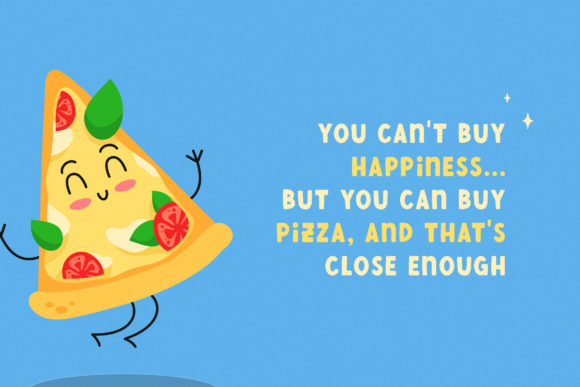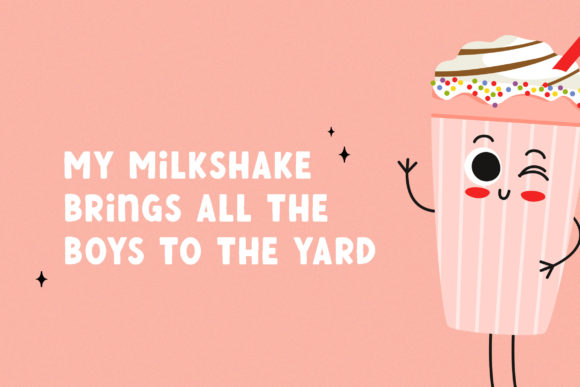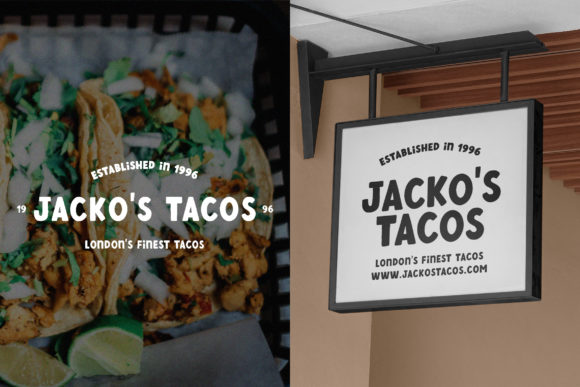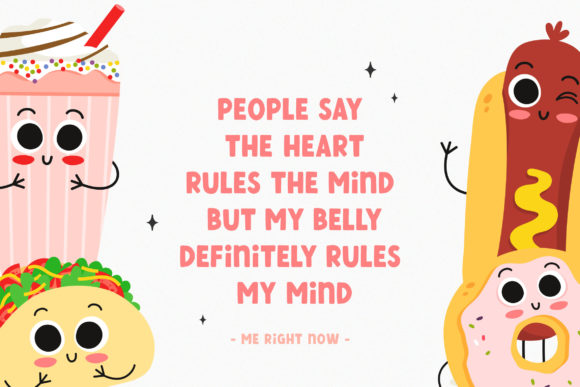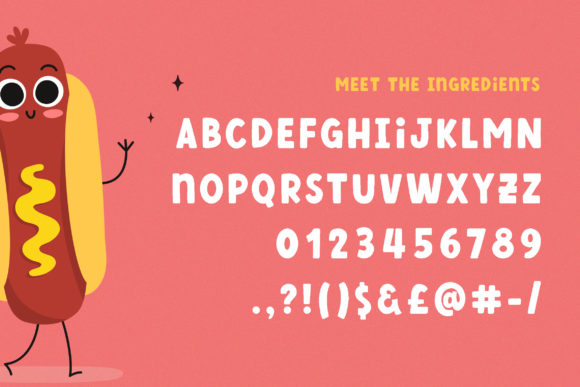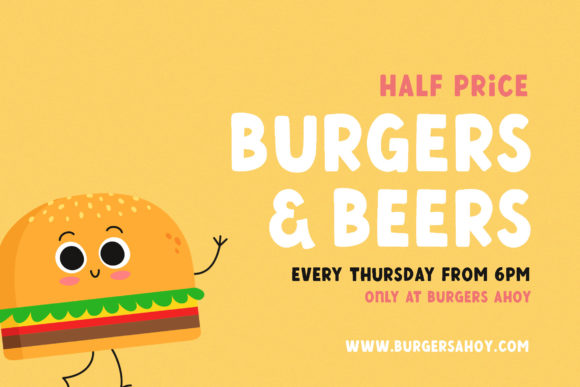
Fries and Shake Font: The Ultimate Display Font for Relaxed Creations
Are you tired of using the same old fonts for your designs? Look no further than the Fries and Shake font, a cool, bold, and thick lettered display font that’s perfect for adding a relaxed touch to your creations. With its informal style and casual vibe, this font is sure to become a go-to choice for designers and crafters alike.
What Makes Fries and Shake Font So Special?
Fries and Shake font is a unique and eye-catching display font that’s designed to add a fun and carefree touch to your designs. Its bold and thick letters make it perfect for headlines, titles, and other applications where you want to make a statement. The font’s informal style and casual vibe also make it ideal for designs that require a relaxed and laid-back feel, such as posters, flyers, and social media graphics.
Key Features of Fries and Shake Font
- Cool and Bold Design: Fries and Shake font features a cool and bold design that’s perfect for making a statement.
- Thick Lettered: The font’s thick letters make it easy to read and add a touch of sophistication to your designs.
- Informal Style: The font’s informal style and casual vibe make it perfect for designs that require a relaxed touch.
- Versatile: Fries and Shake font is versatile and can be used for a wide range of design applications, from posters and flyers to social media graphics and more.
Who Can Benefit from Using Fries and Shake Font?
Fries and Shake font is perfect for designers, crafters, and anyone who wants to add a relaxed touch to their creations. Here are some examples of who can benefit from using this font:
- Graphic Designers: Graphic designers can use Fries and Shake font to add a fun and carefree touch to their designs, from posters and flyers to social media graphics and more.
- Crafters: Crafters can use this font to add a personal touch to their handmade projects, such as scrapbooking, card making, and more.
- Small Business Owners: Small business owners can use Fries and Shake font to create eye-catching signage, flyers, and other marketing materials that reflect their brand’s personality.
Tips for Using Fries and Shake Font
Here are some tips for using Fries and Shake font effectively in your designs:
- Use it as a Display Font: Fries and Shake font is designed to be used as a display font, so use it for headlines, titles, and other applications where you want to make a statement.
- Pair it with Other Fonts: Pair Fries and Shake font with other fonts to create a unique and visually appealing design.
- Experiment with Colors: Experiment with different colors to find the perfect combination that reflects your brand’s personality.
| Font Name | Fries and Shake Font |
| Author | Jupiter Studio |
Fries and Shake font is a cool, bold, and thick lettered display font that’s perfect for adding a relaxed touch to your creations. With its informal style and casual vibe, this font is sure to become a go-to choice for designers and crafters alike. Whether you’re a graphic designer, crafter, or small business owner, Fries and Shake font is a versatile and eye-catching font that’s sure to make your designs stand out.